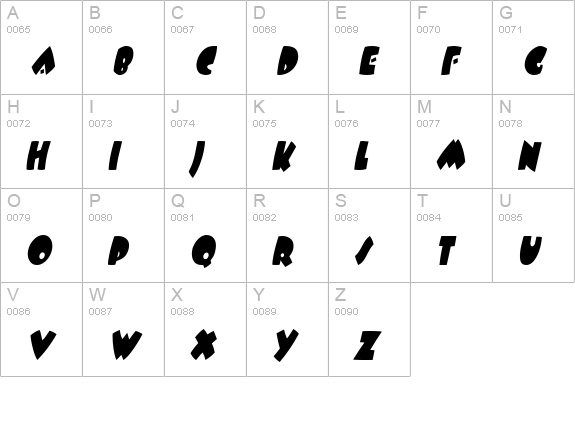
WampumCondensed Italic Font Details
WampumCondensed Italic is a distinctive, italic variant in the WampumCondensed typeface family \xE2\x80\x94 well suited to design and typography projects.
WampumCondensed Italic font is a striking and elegant typeface that effortlessly combines modernity with classic charm. Its sleek lines and subtle slant create a sense of sophistication and grace, making it the perfect choice for any design project that requires a touch of refinement. This font boasts a condensed style, which allows for maximum impact in limited spaces. Whether it's a headline, logo, or body text, WampumCondensed Italic ensures that your message will be delivered with clarity and style. Its italicized form adds a touch of playfulness and flair, giving your design a unique and dynamic edge. One of the best features of WampumCondensed Italic font is that it is free to download. You can easily access this font at FontsMarket.com, where it is readily available for your design needs. This means that you can enhance your projects with this elegant typeface without worrying about any additional costs. With WampumCondensed Italic font, your designs will stand out from the crowd, leaving a lasting impression on your audience. Its versatility allows it to be used across various platforms, from print to digital, ensuring that your message will be consistent and impactful. Add a touch of sophistication and elegance to your designs with WampumCondensed Italic font. Download it for free at FontsMarket.com and elevate your design projects to new heights.